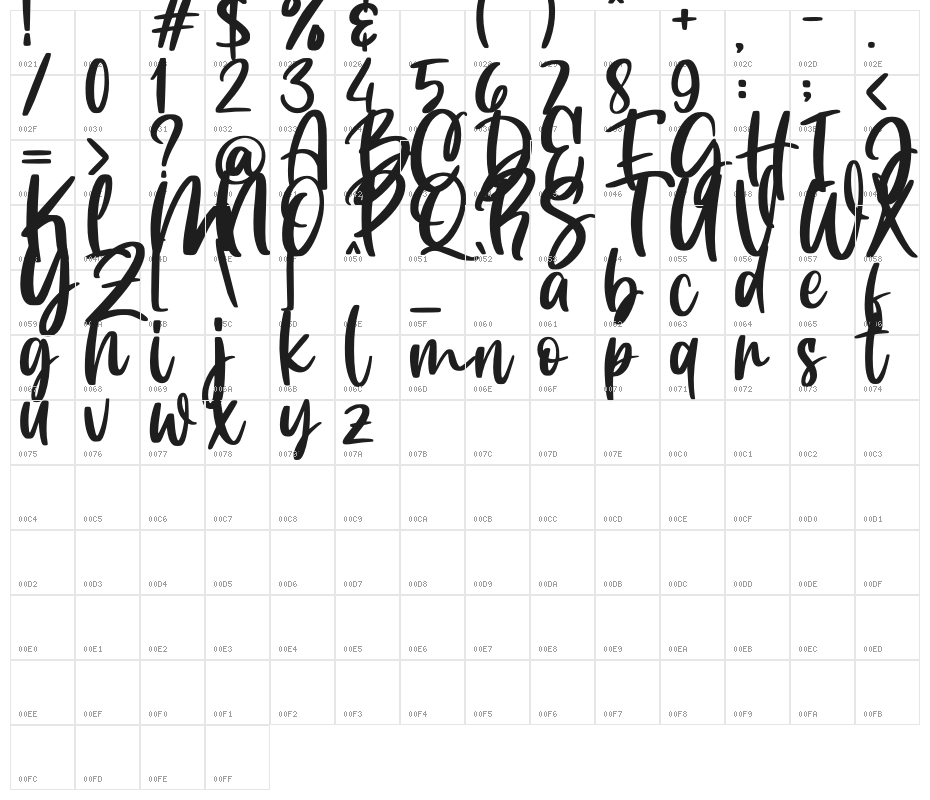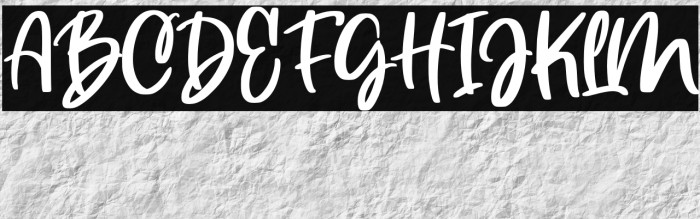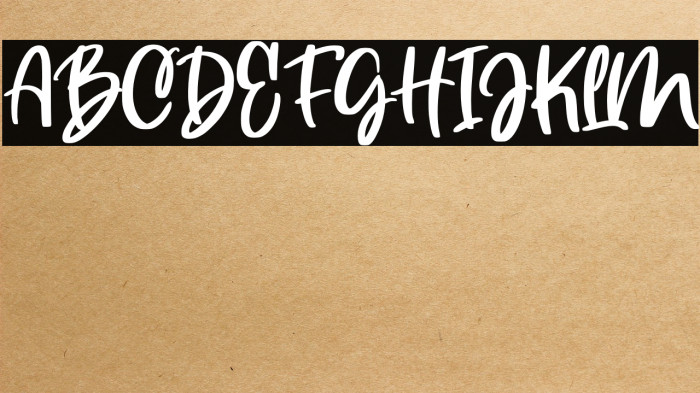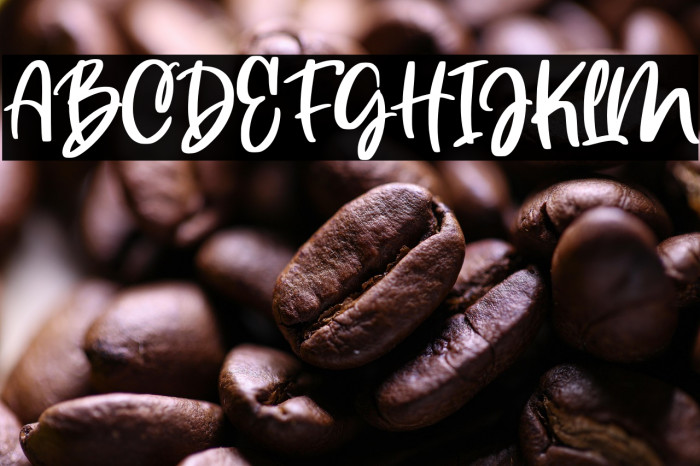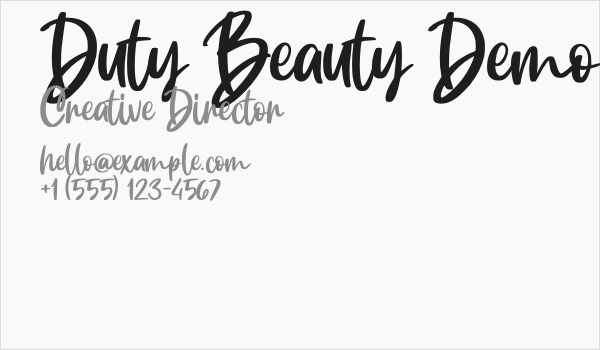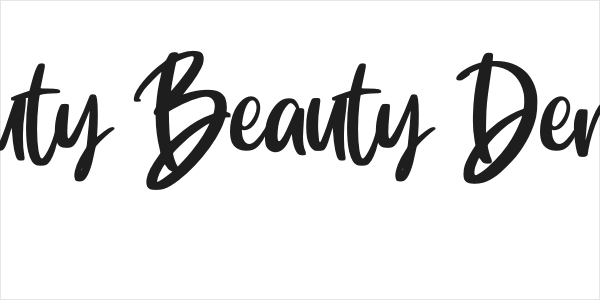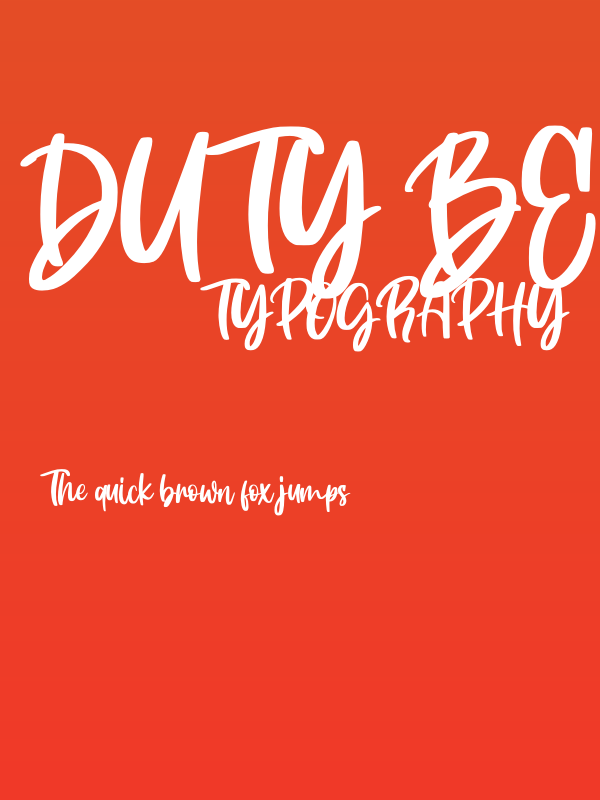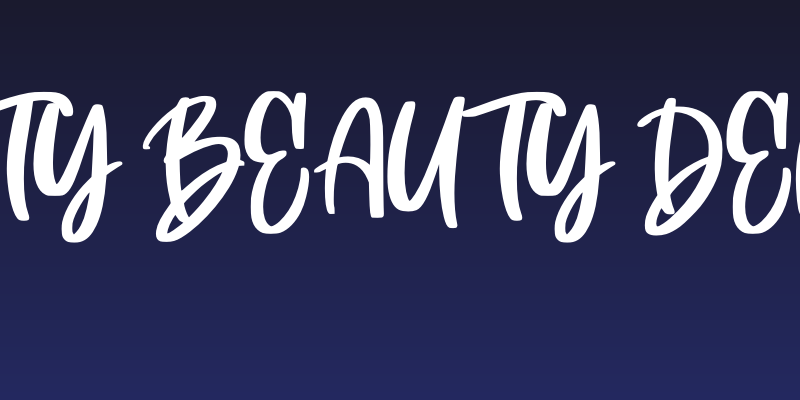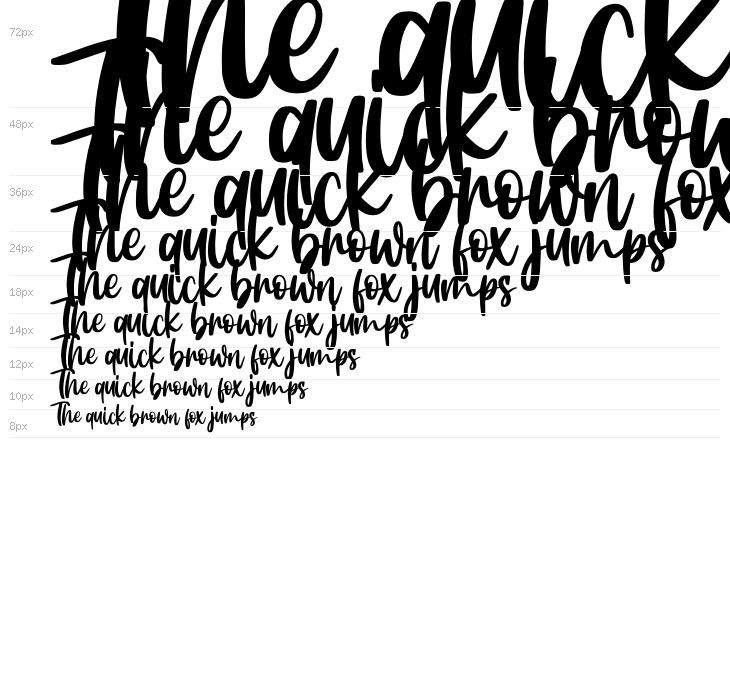
Duty Beauty Demo Font
Duty Beauty Demo Description
This font features a bold, handwritten style that exudes a sense of energy and creativity. The letters are crafted with a flowing, cursive touch, giving them a dynamic and lively appearance. The uppercase and lowercase letters maintain a consistent style, with smooth curves and a slightly irregular baseline that adds to the font's charm. The numbers and special characters are equally expressive, ensuring a cohesive look across all text elements. The overall design is playful yet sophisticated, making it suitable for a variety of creative projects.